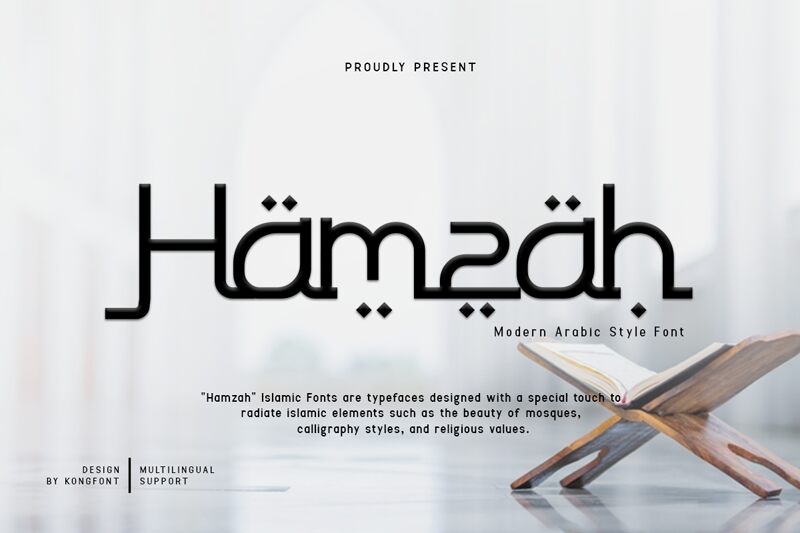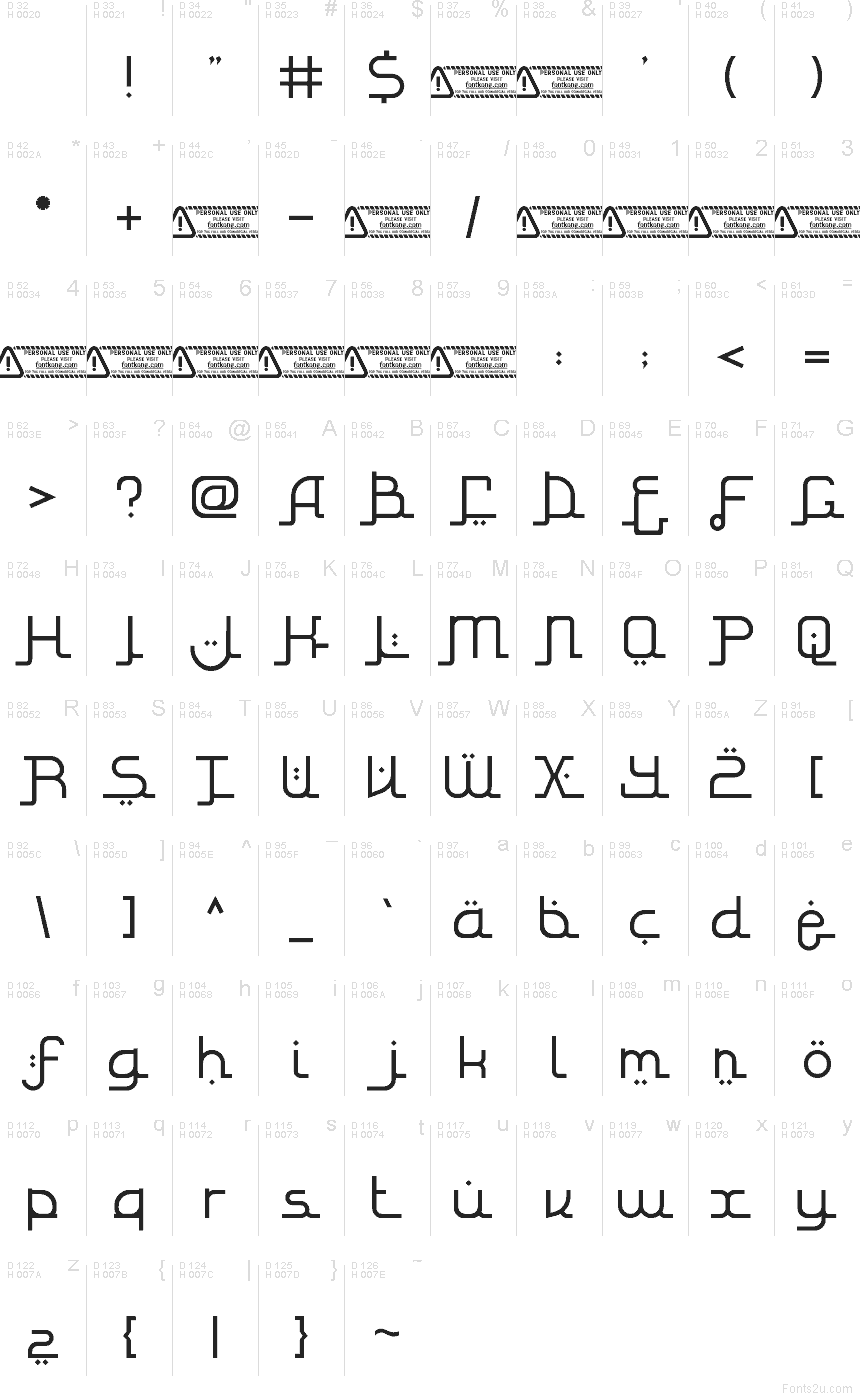
Hamzah font by Kong Font is a free foreign decorative typeface that turns Latin letters into sleek, faux-Arabic symbols. Long, tubular strokes bend into right angles, while stacked dots and tiny lozenges echo traditional calligraphic marks. The rhythm feels both geometric and handwritten, giving headlines a distinctive, exotic-flavored texture without sacrificing legibility in short words and phrases.
Using Hamzah, this free font shines on restaurant logos, hookah lounge signage, Middle Eastern–themed posters, event flyers, game titles, and bold packaging. Its tight, continuous flow draws the eye in busy layouts, so it works best at larger sizes where the dotted details can breathe. Pair Hamzah with a simple sans serif for body text to keep the overall design clean and readable.